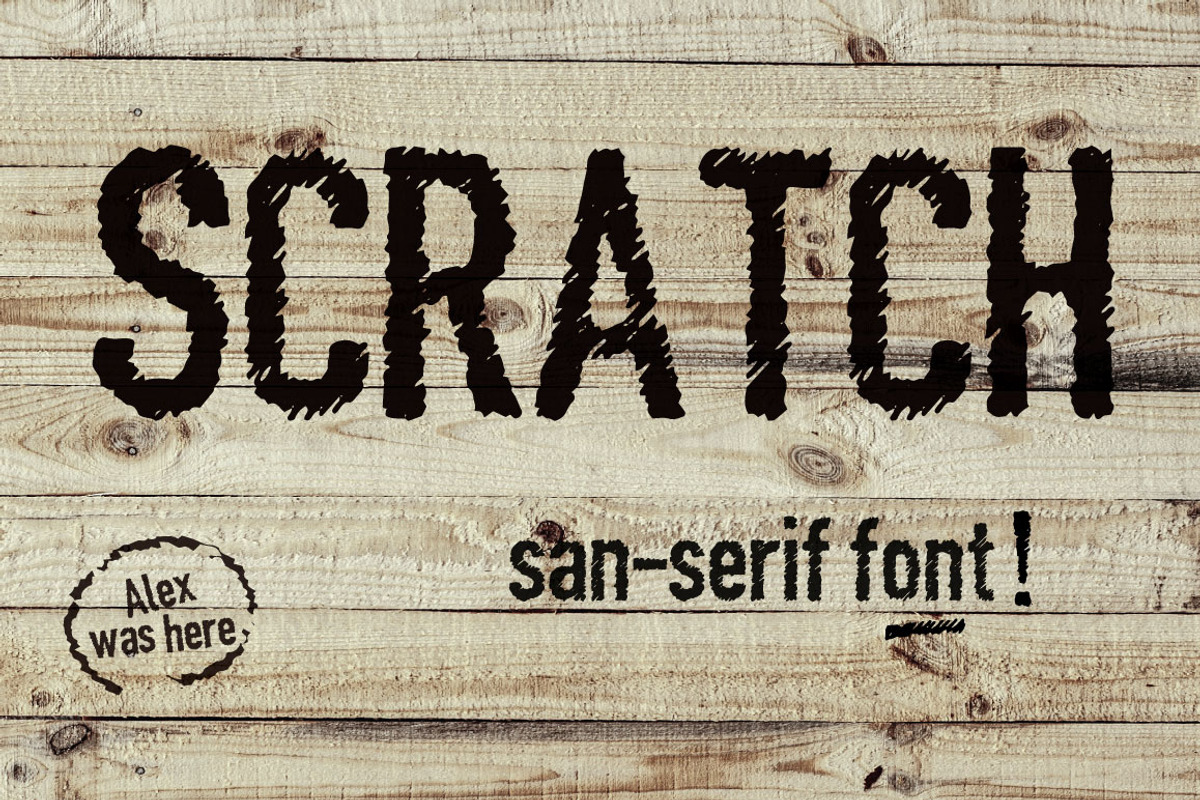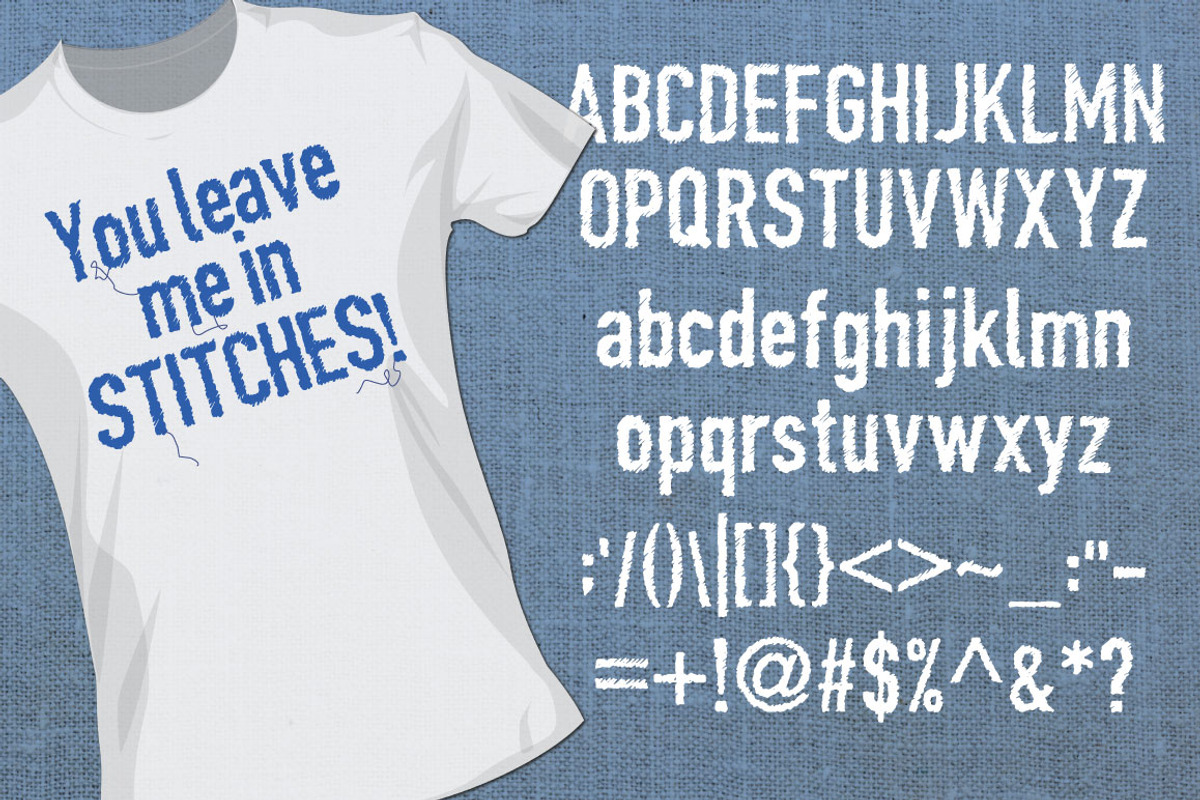
Made with love font
Made with love font by morninglight is a font selected for branding, posters, packaging, typography.
- Includes all characters, upper and lower case, as well as symbols, punctuation marks etc.
Why Made with love font is worth a look
Made with love font by morninglight fits naturally into Branding, posters, packaging, typography.